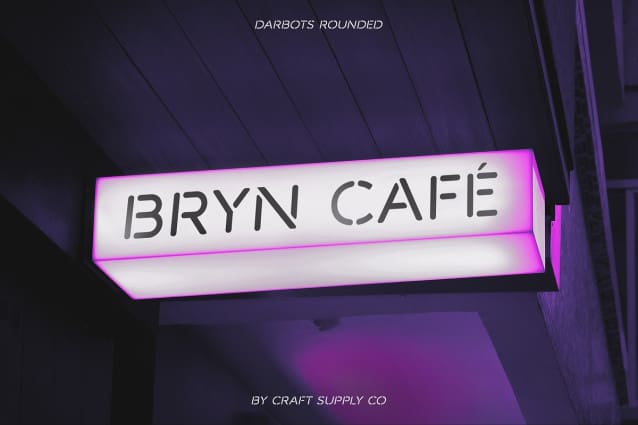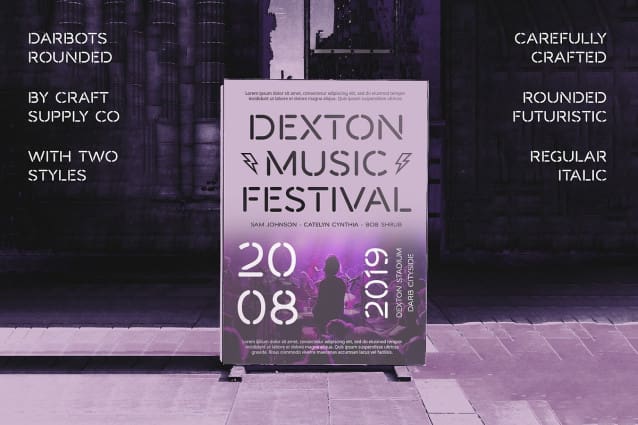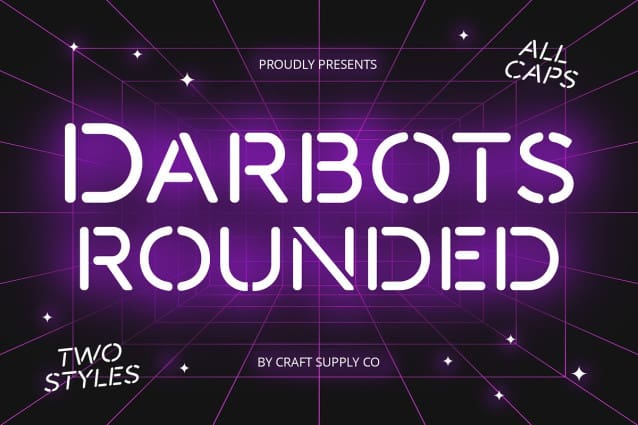
Darbots Rounded Font
Darbots Rounded Font: Modern Sans Serif Stencil. Sleek Stencil Design Darbots Rounded features a sleek sans serif stencil design that exudes modernity and sophistication. Its clean lines and minimalistic appearance make it perfect for contemporary projects.
Low Contrast Appeal With its low contrast style, This font offers a subtle yet impactful aesthetic. The balanced contrast ensures legibility while maintaining a modern and streamlined look.
Nuanced Modernity This font embodies a nuanced sense of modernity, blending classic stencil elements with contemporary design trends. Its refined style adds a touch of elegance to any project without overwhelming the overall aesthetic.
Versatile Application Ideal for a wide range of applications, This font is versatile and adaptable. Whether used for branding, signage, or digital designs, its modern sans serif stencil style adds a sleek and professional touch to any project.
Contemporary Elegance with Stencil Sophistication This font offers a fresh take on the classic stencil font, combining modernity with timeless elegance. With its low-contrast design and nuanced style, it’s a versatile choice for designers looking to add a touch of sophistication to their projects.